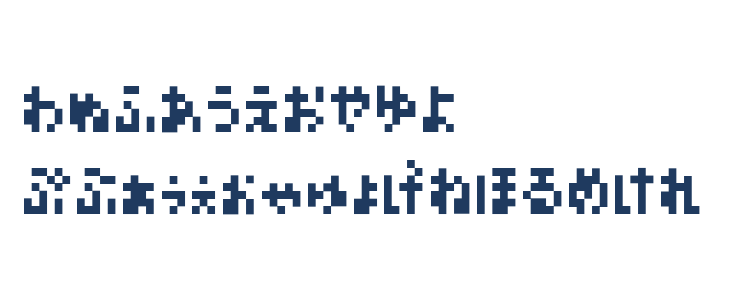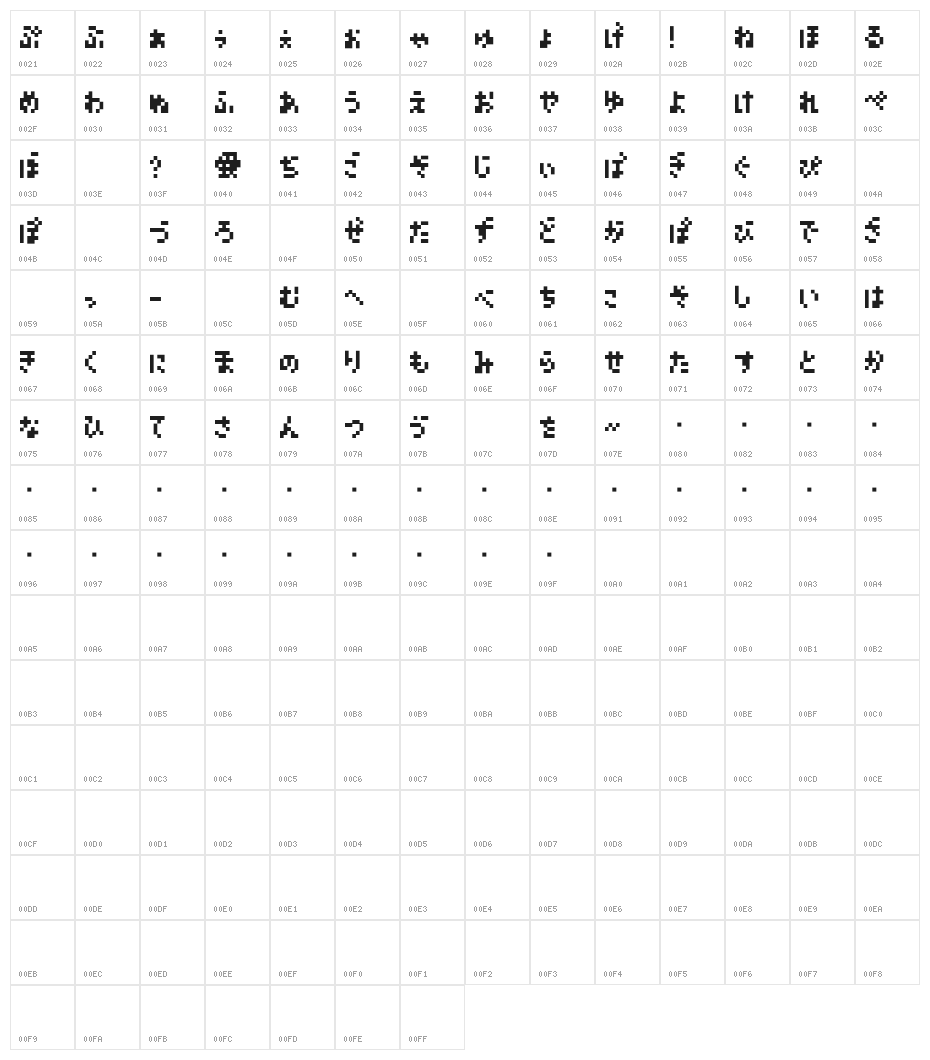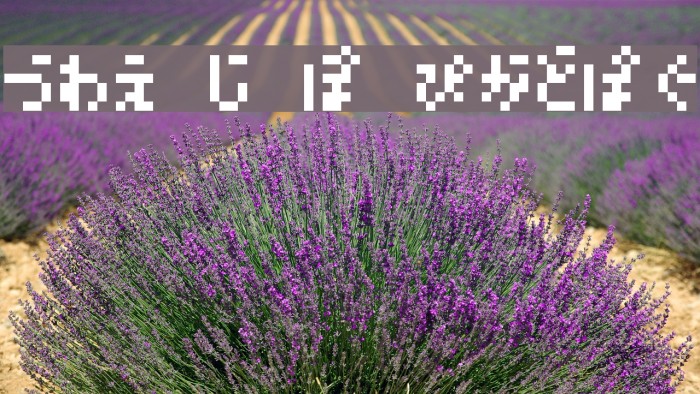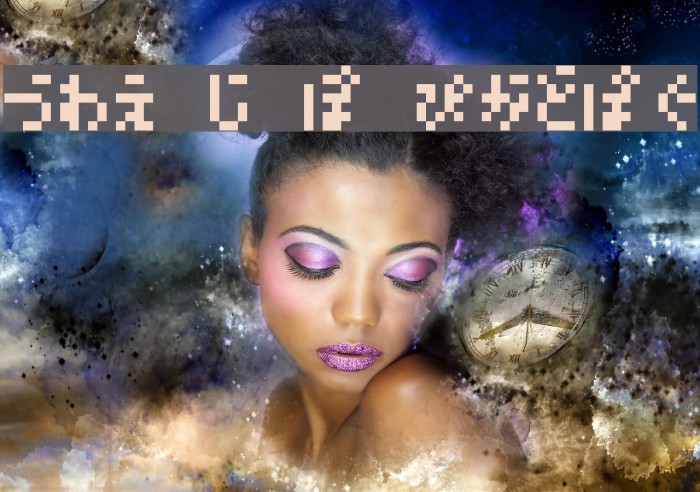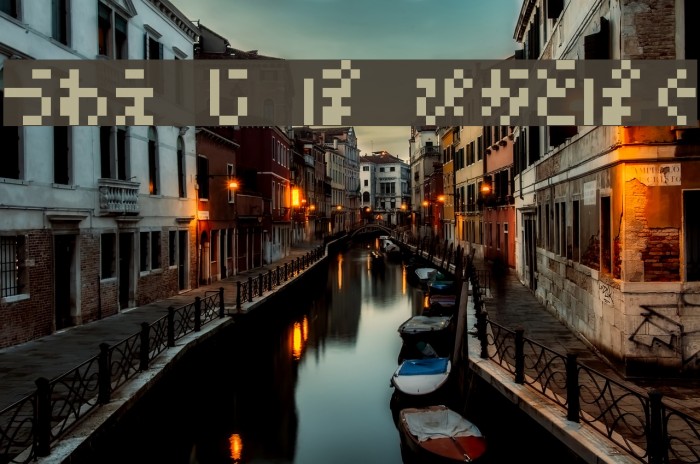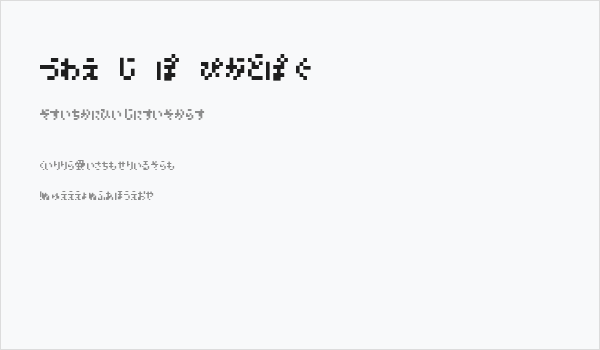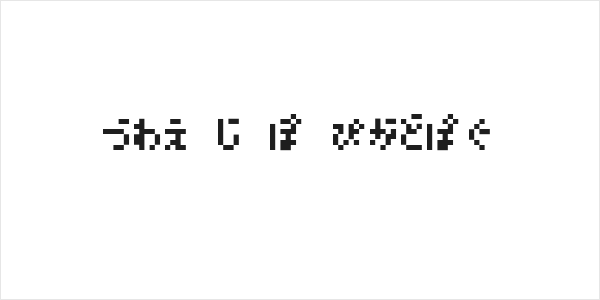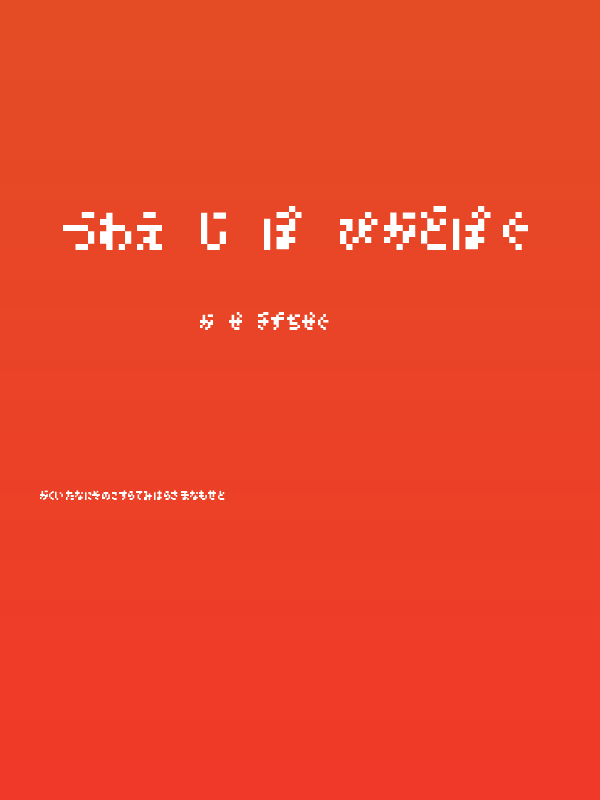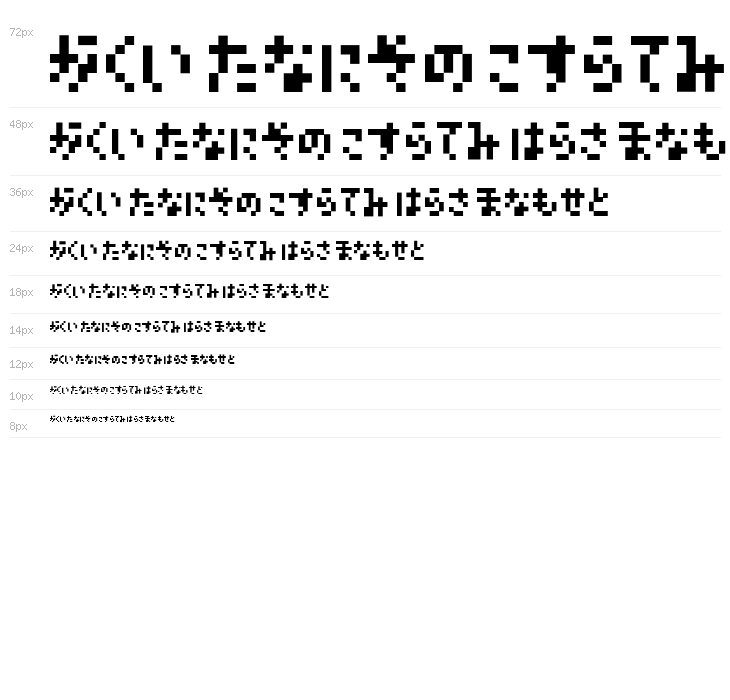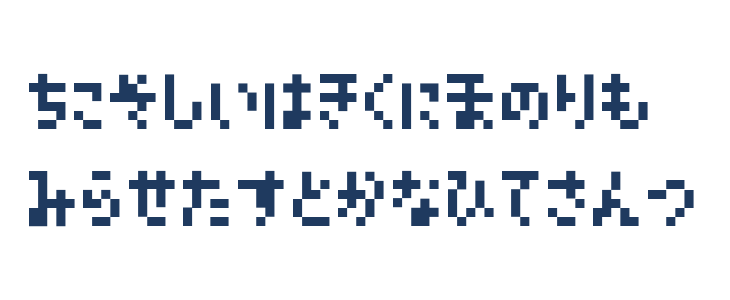
M05_DOKOITSU H Font
M05_DOKOITSU H Description
This font features a pixelated, blocky design reminiscent of early digital displays and retro video games. Each character is constructed with a grid-like structure, giving it a distinctly digital and geometric appearance. The uniformity in stroke width across all characters contributes to a cohesive and consistent look. The font is highly legible at larger sizes, making it suitable for headlines or display purposes. Its nostalgic aesthetic evokes a sense of vintage computing and classic arcade games, appealing to those interested in retro or tech-inspired designs.